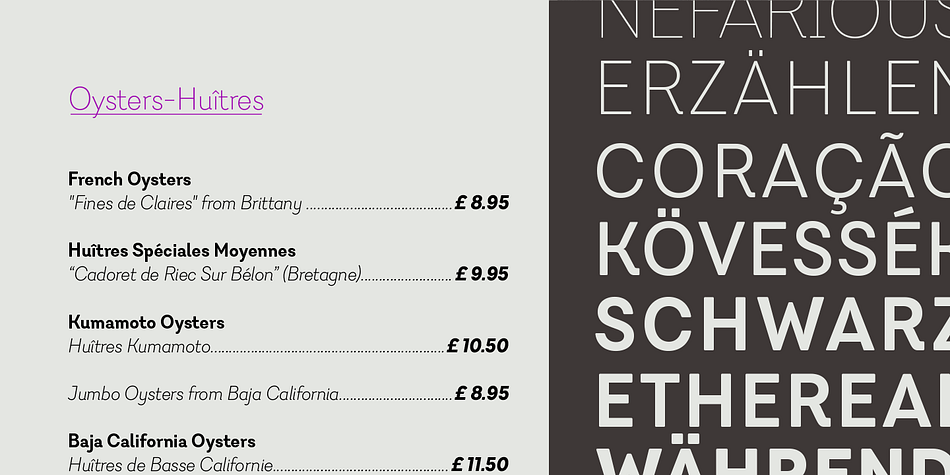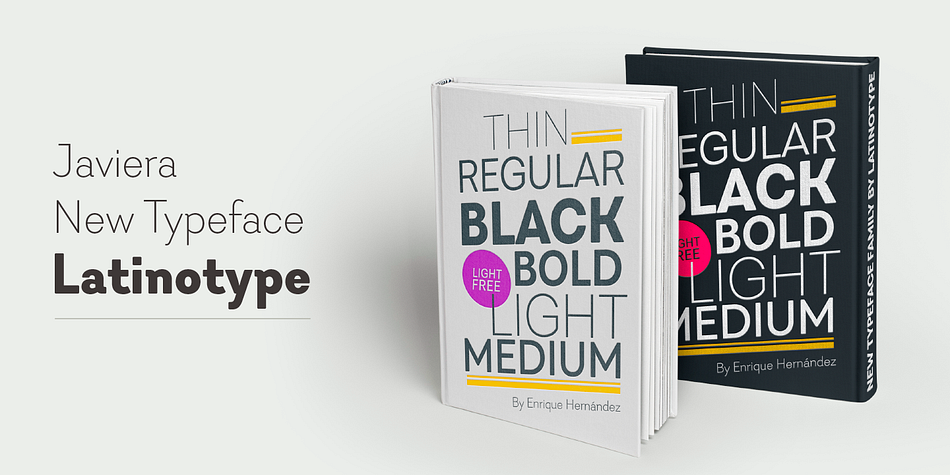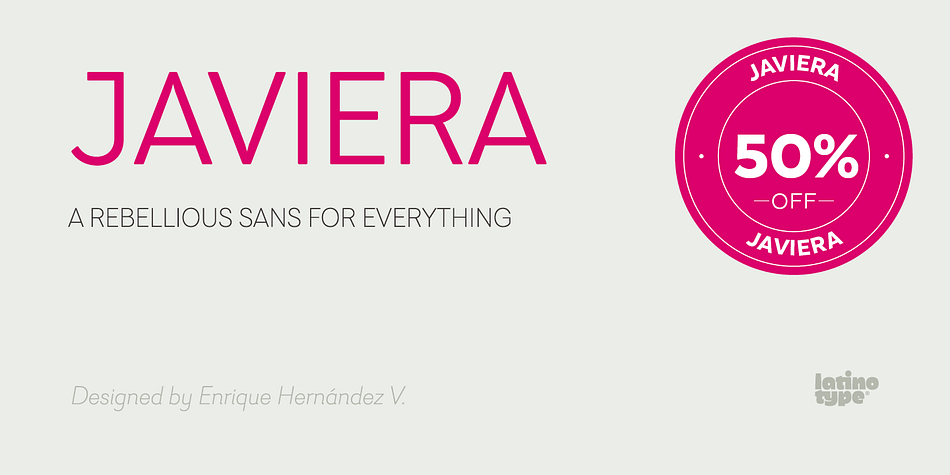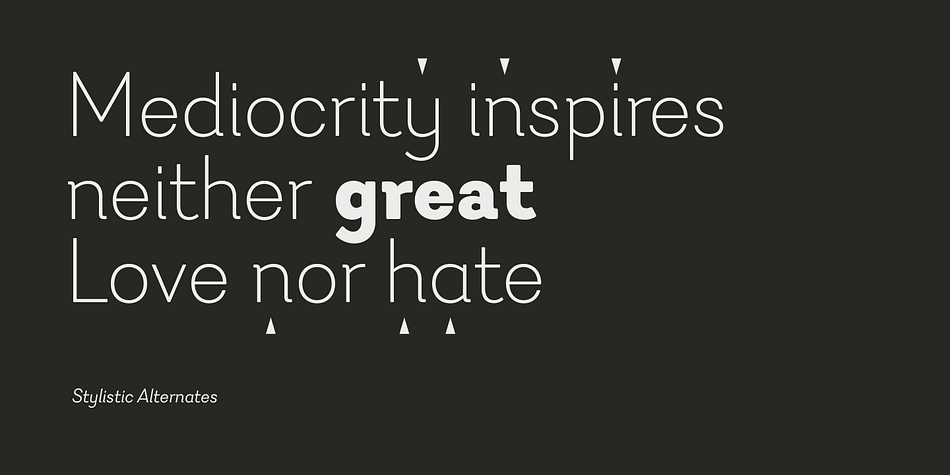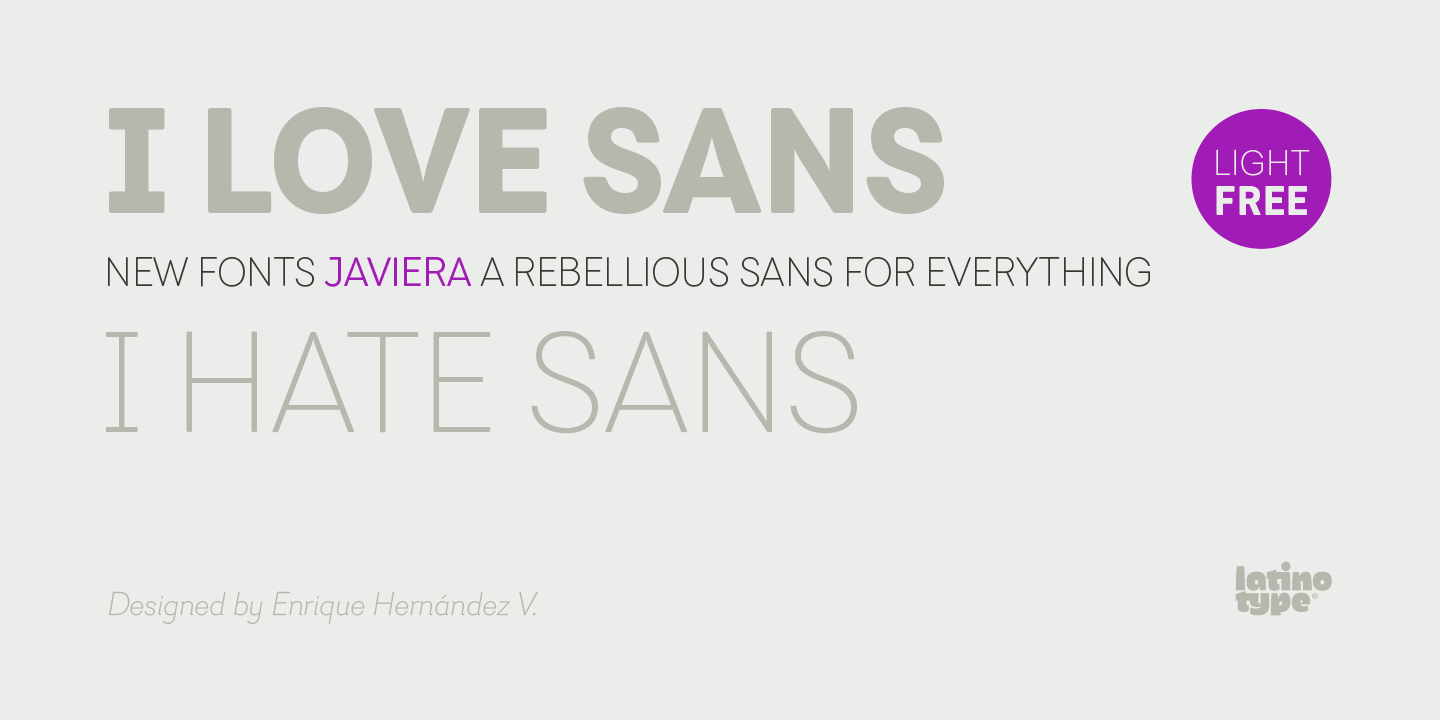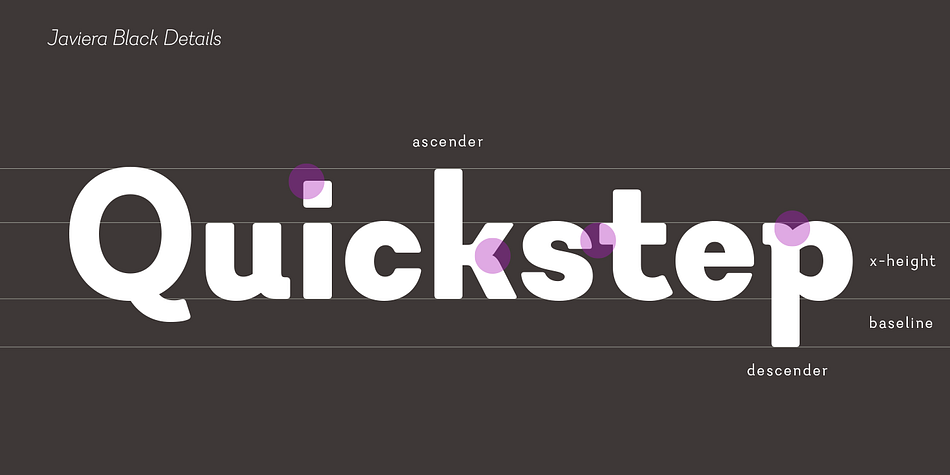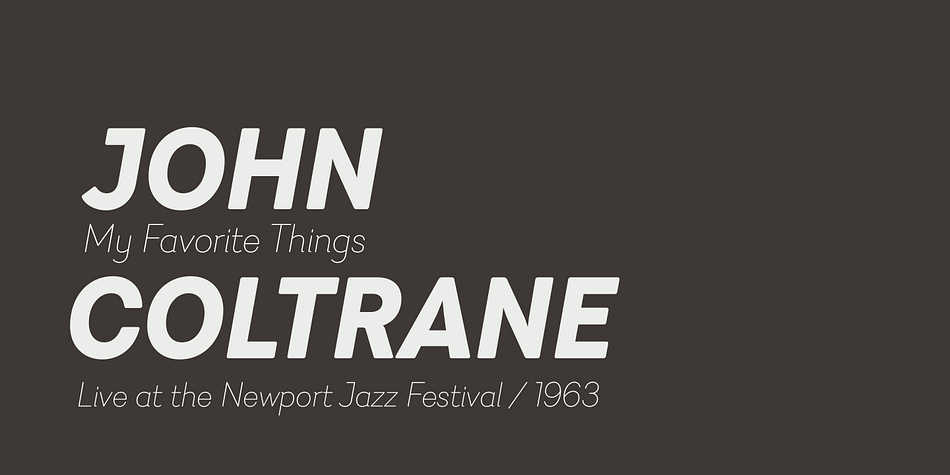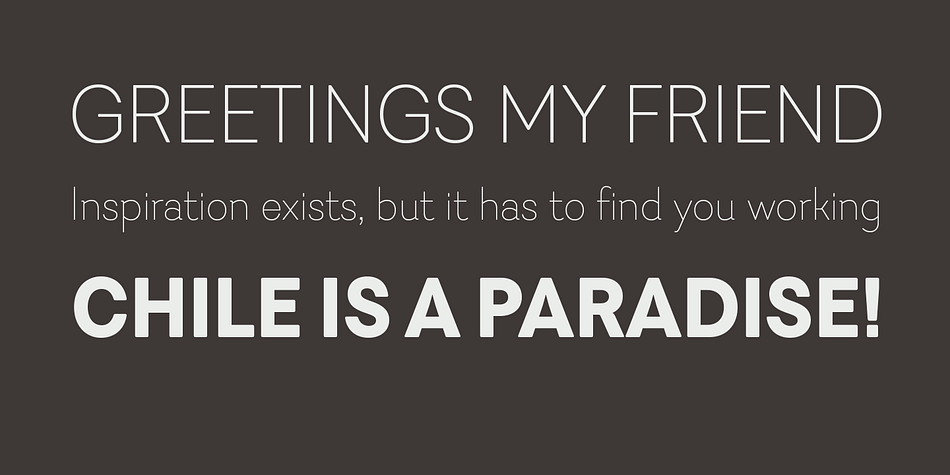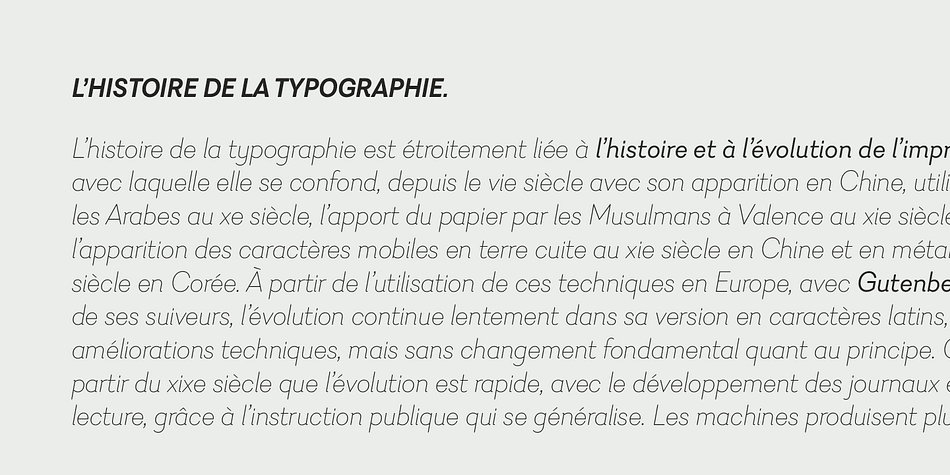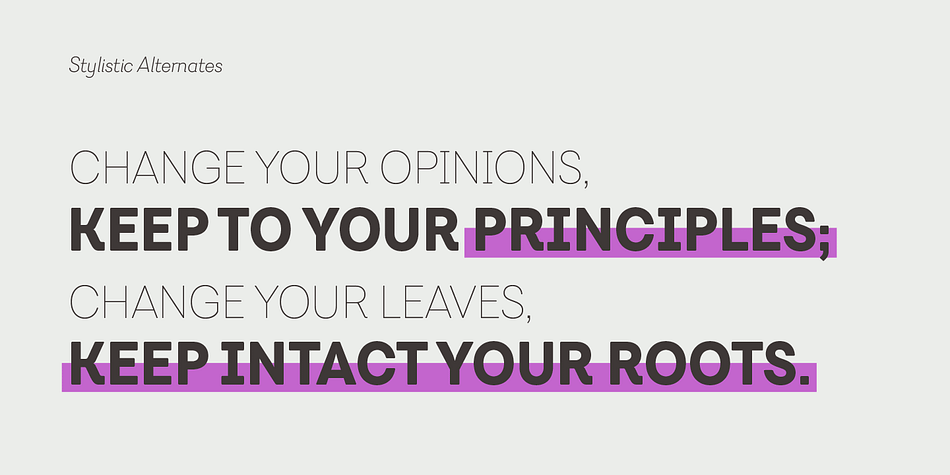
Designed by Enrique Hernandez, Javiera is a sans serif font family. This typeface has twelve styles and was published by Latinotype.
Javiera is a geometric sans-serif typeface with humanist attributes. One of its main features is its small x-height, which makes ascenders and descenders look longer. The contrast gives the font a more stylised look, typical of humanist fonts.
Curves and rounded terminals make Javiera a smooth, friendly and versatile typeface, well-suited for branding, magazines and publishing projects. User can take more advantage of the versatility of the font by enabling alternative characters included in the set.
Javiera comes in 6 styles-from Thin to Black-plus matching italics, giving a total of 12 fonts. The font’s extreme weights are perfect for display use. Javiera family contains a set of more than 400 characters and supports over 200 different languages.